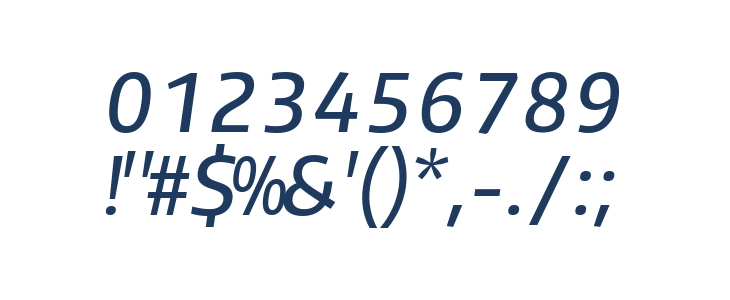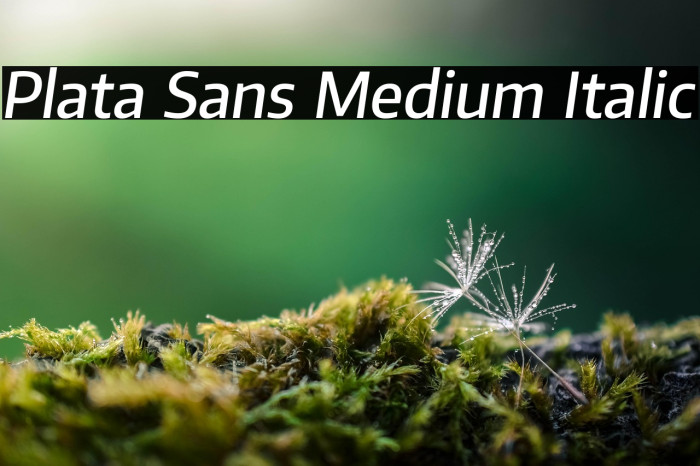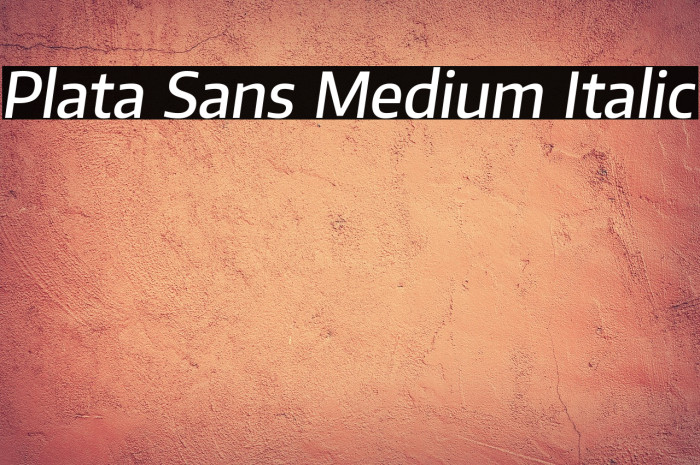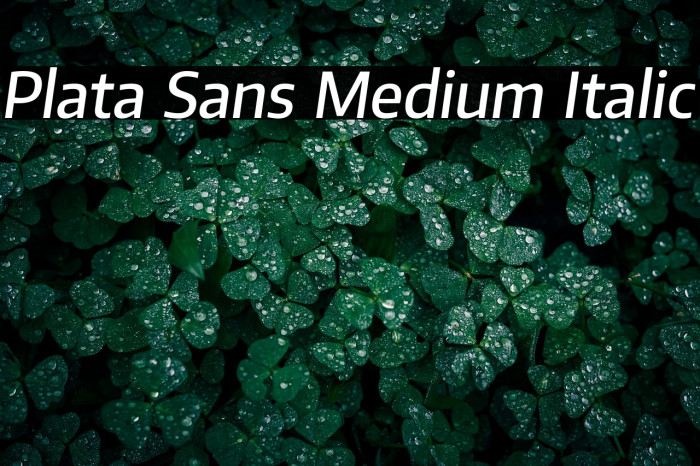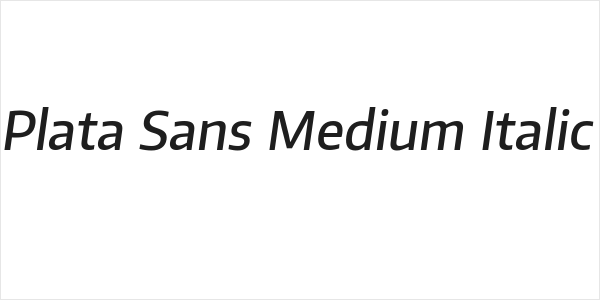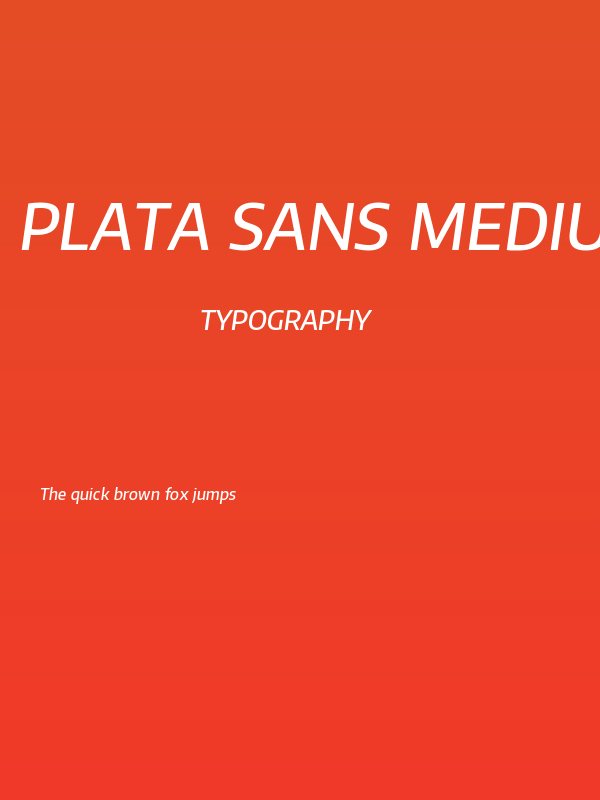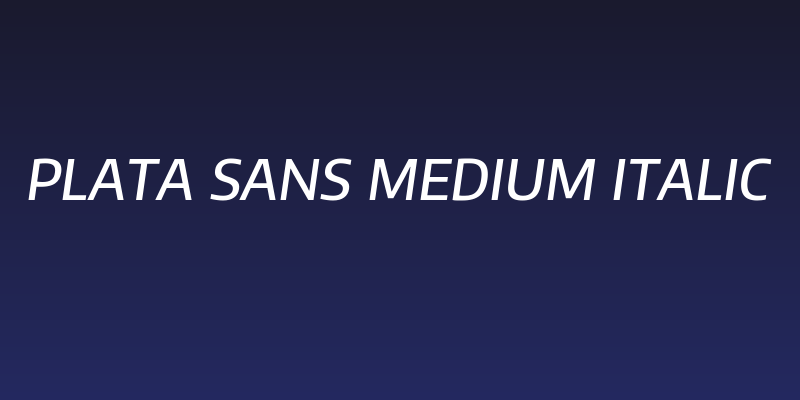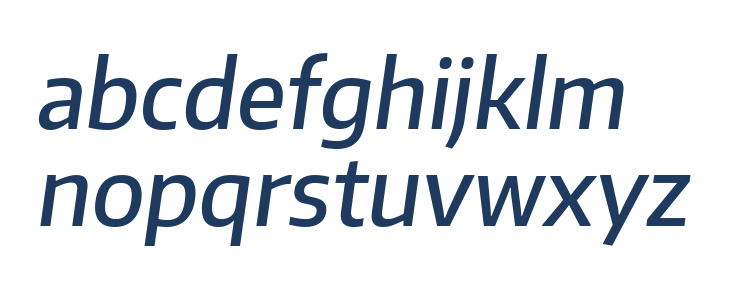
Plata Sans Medium Italic Font
Plata Sans Medium Italic Description
This font features a sleek and modern sans-serif design with a medium weight and italic style. The characters are slightly slanted, giving a dynamic and forward-moving appearance. The letterforms are clean and well-defined, with a consistent stroke width that maintains readability across various sizes. The font exhibits a balanced proportion, making it versatile for both digital and print media. Its contemporary aesthetic is suitable for a wide range of applications, from branding to editorial design.